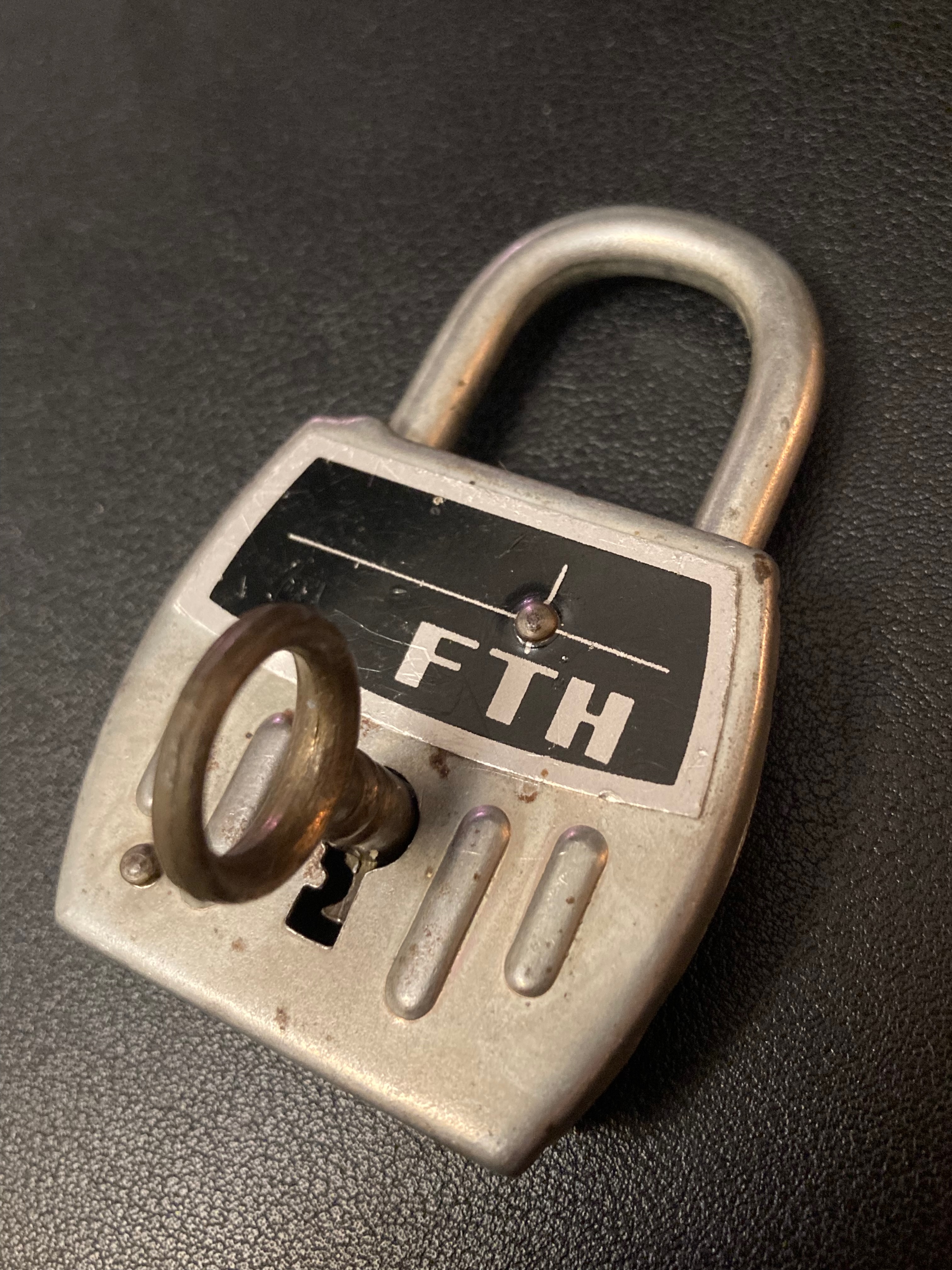
FTH — Lettering on a Padlock
Bold white uppercase sans-serif lettering reading "FTH" on a black plate,
applied to the front of a worn metal padlock. Three oval recesses are cast
into the body below; a key with a round bow sits in the keyhole.